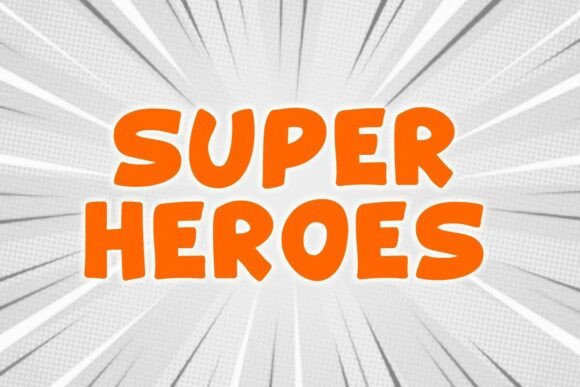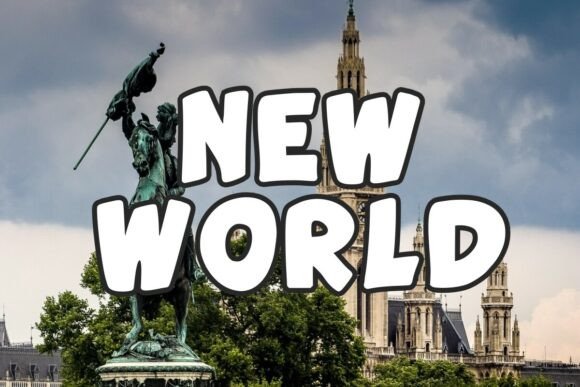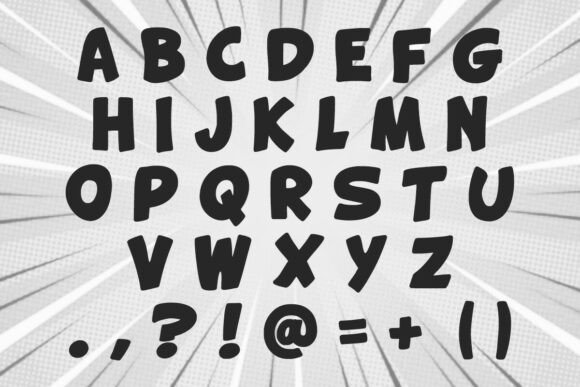
Introduction to Comic Hero Font
Introduce your designs to Comic Hero, a whimsically bold, breezy display font oozing with an unmistakable charm.
Easy to read, this typographical gem effortlessly infuses any project, digital designs, craft arts, presentations, or greeting cards with a vibe of congeniality Celebrate each occasion with a unique style as Comic Hero has the versatility to be your number one choice of font, every time.